1. Blue Flora Font
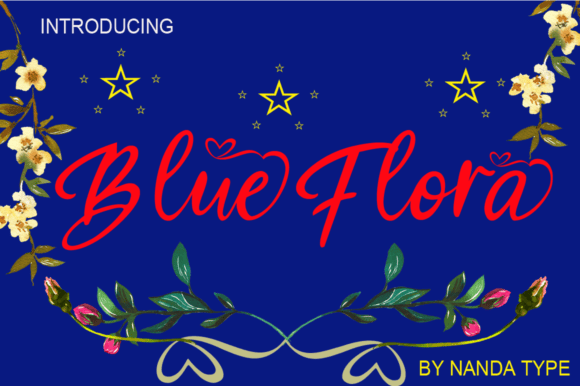
Blue Flora is a handcrafted font with a regular and bold vibe. It will add a natural touch to your stationery designs, quotes, branding, logos, greeting cards, t-shirts, packaging designs, posters, and more. This font is PUA encoded which means you can access all of the glyphs and swashes with ease!
2. Nynalite Script Font
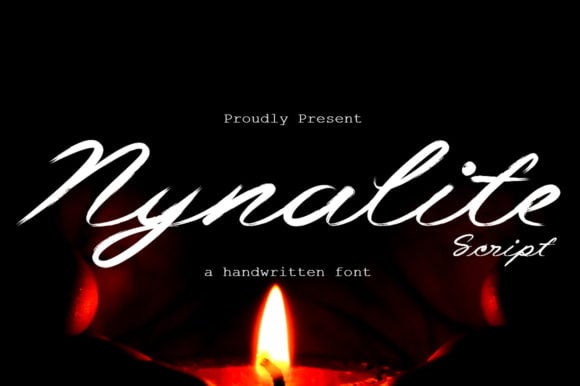
Nynalite Script is a handwritten font that looks free-flowing and light as a feather. Elegant and casual, it is the perfect choice for any of your favorite projects. Fall in love with its different and timeless style, and use it to create spectacular designs!
3. Adventure Font
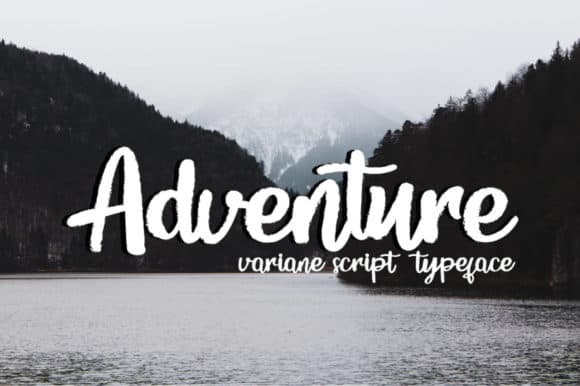
Adventure is a delicate and elegant handwritten font. Its distinct and well balanced letters make this font a masterpiece. Fall in love with its incredibly versatile style and use it to create spectacular designs!
4. Soundmind Font
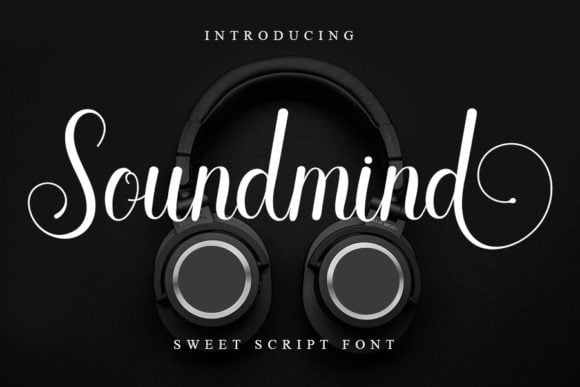
Soundmind is a delicate handwritten font, masterfully designed to become a true favorite. It maintains its classy calligraphic influences while feeling contemporary and fresh.
5. Etweego Font
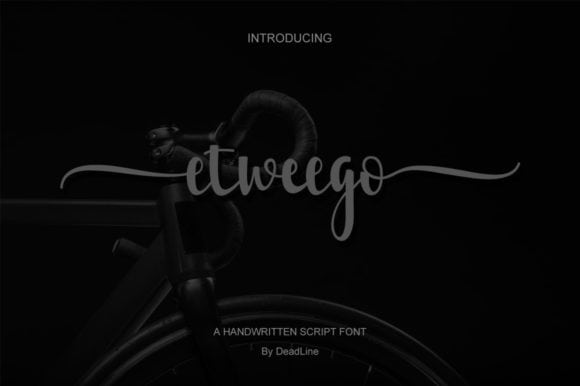
Etweego is a delicate and elegant handwritten font. Its distinct and well balanced letters make this font a masterpiece. This font is PUA encoded which means you can access all glyphs and swashes with ease!
6. Welcome March Font
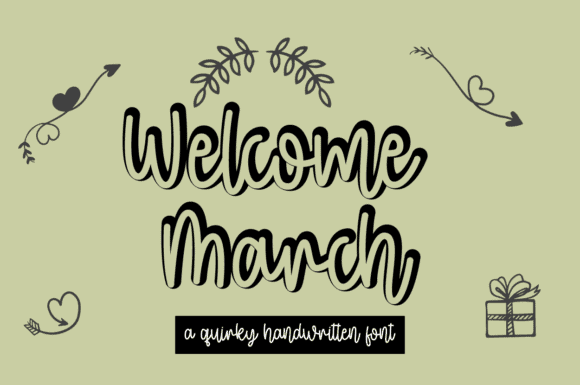
Welcome March feels equally charming and elegant. It looks stunning on wedding invitations, thank you cards, quotes, greeting cards, logos, business cards and every other design which needs a handwritten touch.
7. Amanda Lictian Font
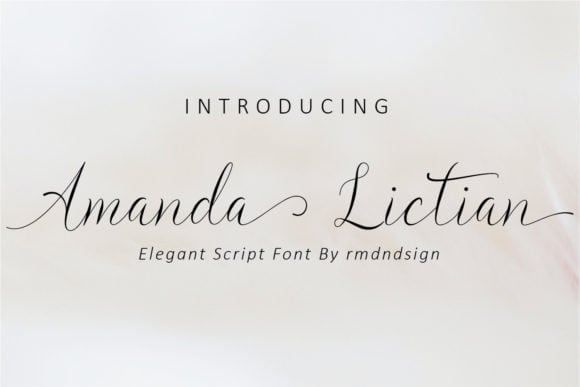
Amanda Lictian is a flowing handwritten font, described by an elegant touch, perfect for your favorite projects. This font is PUA encoded which means you can access all of the glyphs and swashes with ease!
8. Over Bright Font
Over Bright is a thin lettered and graceful script font. Fall for its ravishing style and use it to create gorgeous wedding invitations, beautiful stationary art, eye-catching social media posts, and much more!
9. Salazar Font
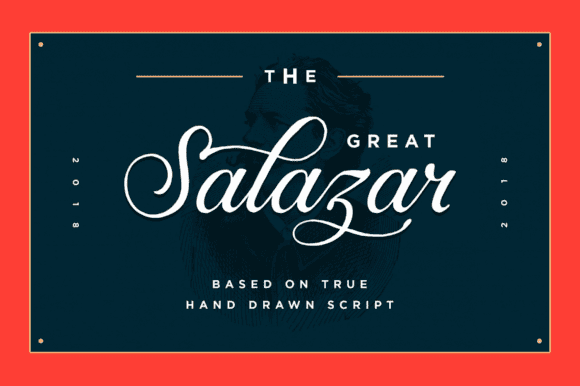
Salazar is a beautiful and light handwritten font with a unique feel and a stunning impact. It will add a luxury spark to any design project that you wish to create!
10. Sinister Font
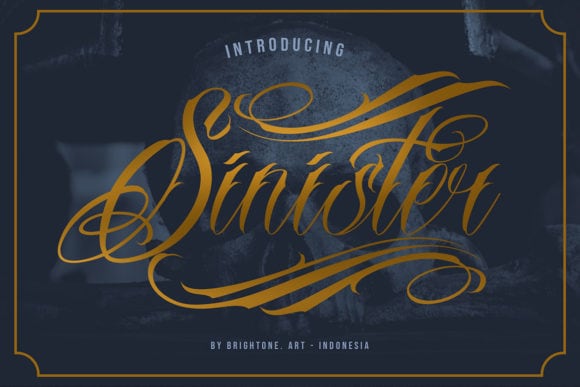
Sinister is an exquisite and distinct handwritten font, masterfully designed to become a true favorite. It maintains its classy calligraphic influences while feeling contemporary and fresh. Fall in love with it and bring your tattoo designs to the highest levels!